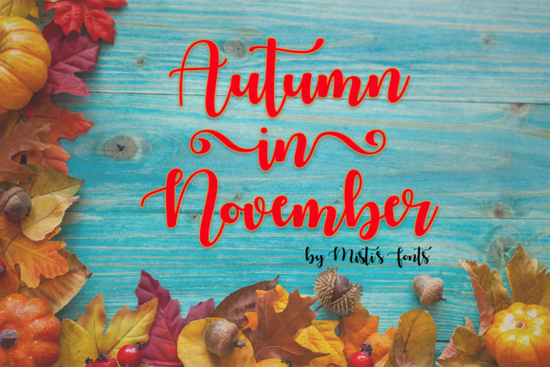
When the leaves start turning and the air gets crisp, designers often look for typefaces that capture that cozy feeling. The Autumn in November Font is a perfect example of this style. Created by Misti's Font, it brings a warm, handwritten vibe to any project. Whether you are making fall-themed invitations or designing seasonal social media posts, this script offers the right balance of readability and artistic flair. It works well for crafters and small business owners who want their branding to feel personal and inviting.
What makes this typeface stand out?
This font features a brush script style that mimics natural handwriting. The strokes vary in thickness, giving it an organic look without being messy. Unlike some decorative fonts that are hard to read, this one maintains clarity even at smaller sizes. The characters connect smoothly, which helps maintain the flow of text in longer phrases. It is particularly useful for projects that need a human touch, such as handmade product labels or wedding stationery. The design avoids overly complex swashes that can clutter a layout, keeping the focus on the message.
If you prefer something with a bit more refinement, you might explore The Lumia Font for a different aesthetic. We have covered more refined script options in our previous articles for those seeking elegance over rustic charm. However, for pure autumn warmth, the November style remains a top choice. It pairs exceptionally well with serif fonts for body text or clean sans-serifs for modern contrast.
Where can you use this style effectively?
Print-on-demand sellers will find this typeface versatile for various products. It looks great on mugs, tote bags, and throw pillows where seasonal themes are popular. Crafters using cutting machines can easily weed the design because the lines are distinct. Small businesses can use it for logo overlays or limited-time sale banners during the fall months. Here are a few specific ideas:
- Wedding Invitations: Use it for names and dates to add a personal touch.
- Social Media Graphics: Overlay text on photos of fall scenery or products.
- Home Decor: Create signs with inspirational quotes or seasonal greetings.
- Packaging: Print it on stickers for homemade jams, candles, or baked goods.
For a more casual vibe, you might consider Hey Darling Font. We also discussed playful handwriting styles that work well for informal branding. The key is matching the font personality to your audience. If your customers value tradition and comfort, the autumn style is likely the better fit. If they prefer something bubbly and fun, the casual alternative might work best.
How does it compare to textured options?
Some designers prefer fonts that look like they were written with a specific tool, like a ballpoint pen. If you need that gritty, realistic texture, the Summer Ballpoint Font offers a different effect. You can read more about textured pen effects in our library of resources. The Autumn in November style is cleaner, which makes it more versatile for printing on dark fabrics or small stickers where texture might get lost. Clean lines ensure the text remains legible across different materials.
Another consideration is the vintage appeal. Some projects require a look that resembles old kitchen labels or pantry jars. For that specific aesthetic, the Mothers Plate Font is a strong contender. We have analyzed vintage label aesthetics before for those interested in retro designs. While the November font is seasonal, the Plate font is more timeless. Choose based on whether you want a temporary seasonal update or a permanent brand element.